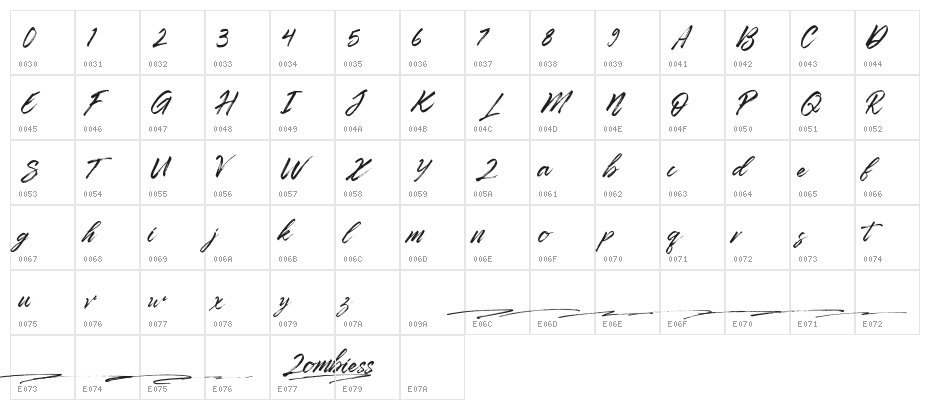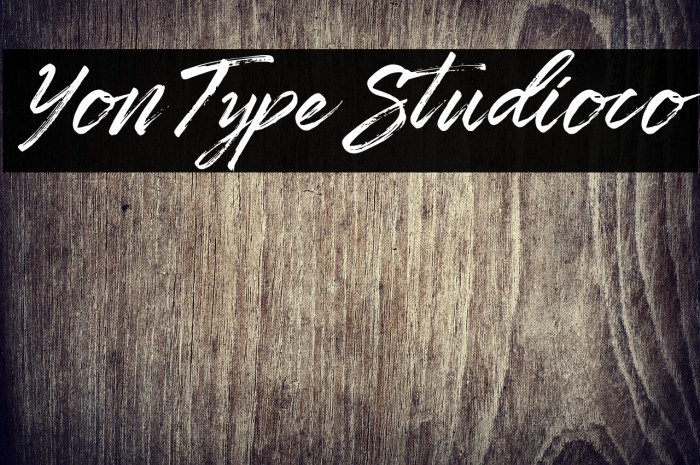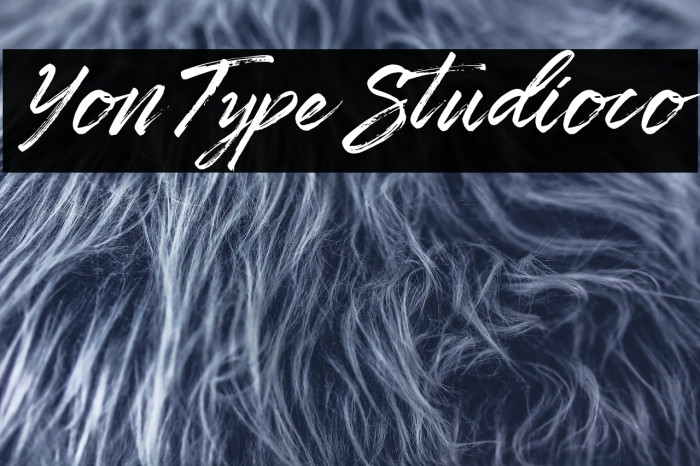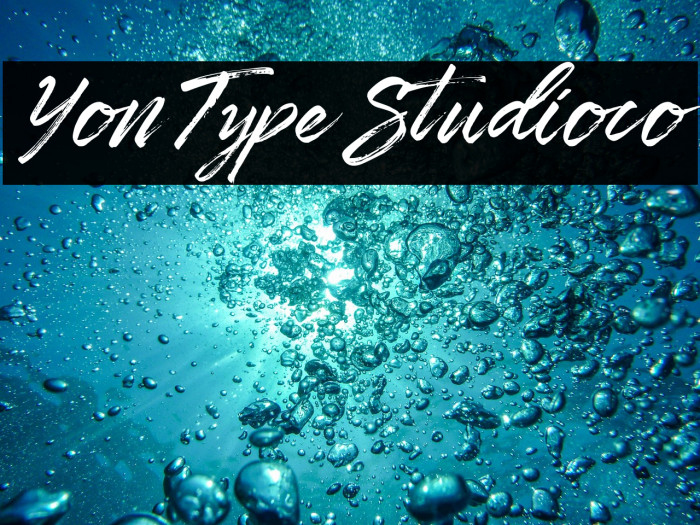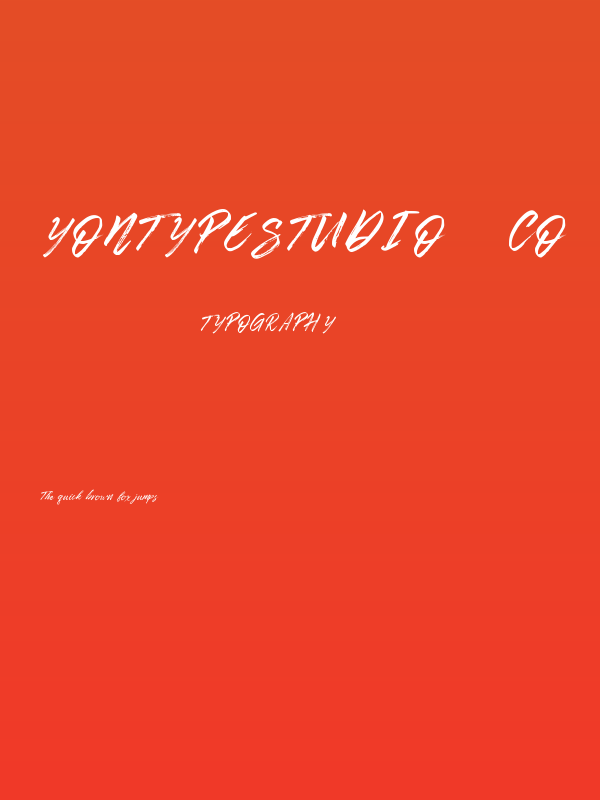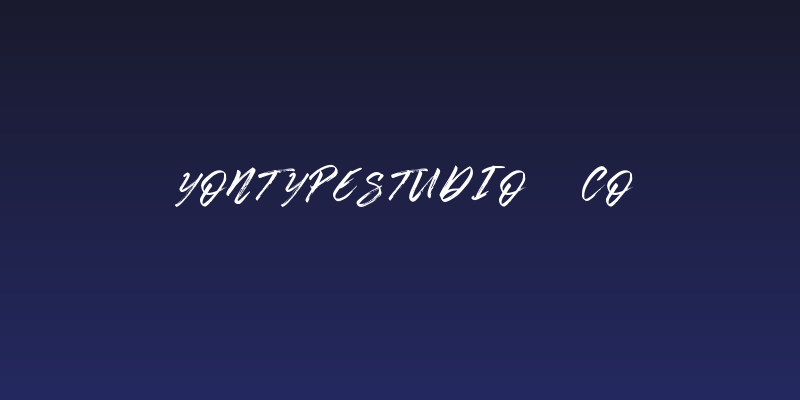
YonTypeStudio.co Font
YonTypeStudio.co Description
This font features a dynamic and expressive script style, characterized by its fluid, handwritten appearance. The strokes are bold and energetic, with a noticeable slant that adds a sense of movement and elegance. The letters are connected in a cursive manner, enhancing the flow and continuity of the text. The uppercase letters are slightly larger and more pronounced, providing a strong visual impact. The lowercase letters maintain a consistent style, with some variations in stroke thickness that add a touch of uniqueness to each character. The numerals are designed to match the overall style, with a similar slant and boldness. This font is ideal for projects that require a personal and artistic touch, such as invitations, greeting cards, and branding materials.